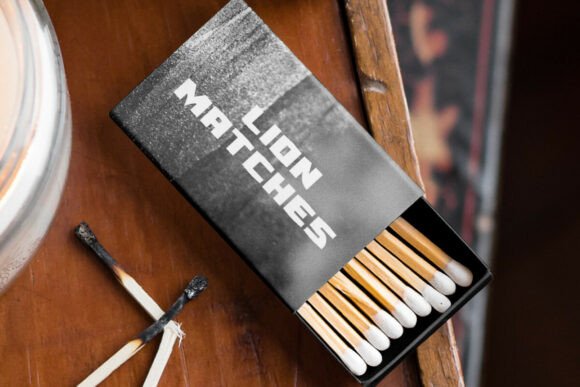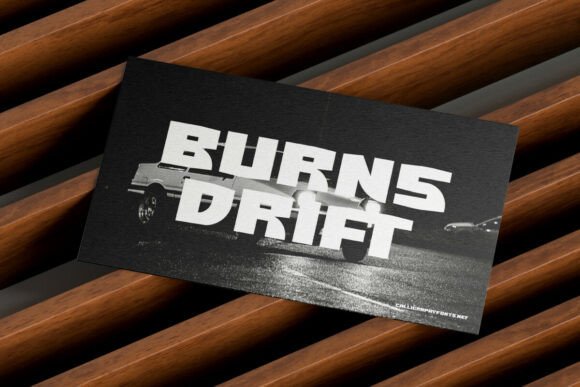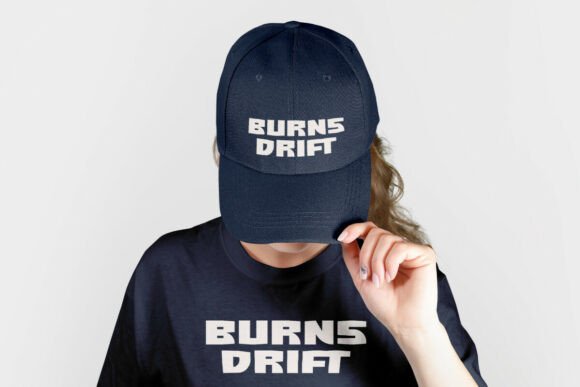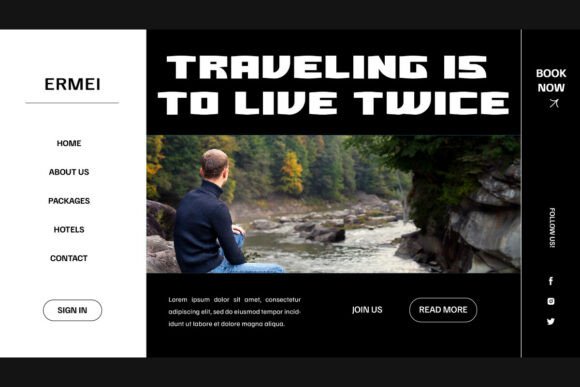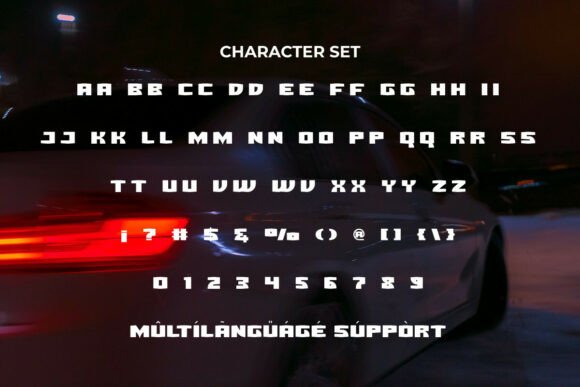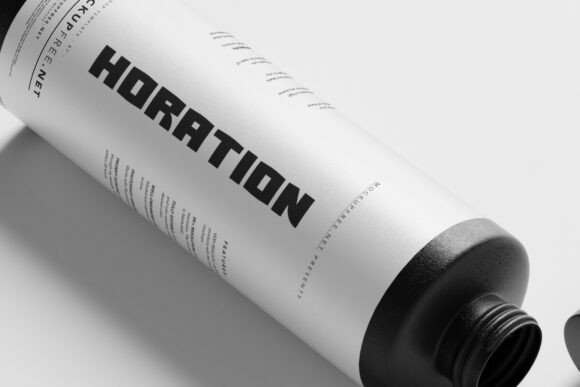
Unleash Your Creativity with Burns Drift Font
Have you ever been in the middle of a design project, and suddenly, it hits you – the font you’re using just isn’t cutting it? You’re striving for that perfect blend of style, boldness, and personality, but it’s just out of reach. I recall a particularly frustrating experience while working on a branding project for a local racing event. The client’s request was straightforward: create a poster that screams speed, energy, and excitement. The problem was, I was stuck with a font that was as dull as a blank canvas. That’s when I stumbled upon Burns Drift Font, and let me tell you, it was love at first sight!
A Bold and Versatile Typeface
Burns Drift Font is a dashing racing-themed font with quite thick contrast, which is attractive because it is strong and bold. Its unique letterforms and robust presence make it perfect for headlines, posters, branding materials, social media graphics, and packaging. This font is designed to make your projects stand out from the crowd, adding a dynamic and modern vibe that’s sure to captivate your audience.
What I Love About Burns Drift Font
• ✨ Bold and Eye-Catching: Burns Drift Font is perfect for making a statement. Its thick contrast and strong letterforms ensure your headlines and titles pop.
• ✅ Versatile: Whether you’re designing posters, business cards, or social media graphics, this font adapts seamlessly to various design needs.
• 💡 Unique Style: The font’s racing-themed design adds a touch of excitement and energy to your projects, making them more engaging and memorable.
While Burns Drift Font is an excellent choice for many projects, there are a few things to keep in mind:
• ⚠️ Legibility at Small Sizes: Due to its bold nature, Burns Drift Font might not be the best choice for body text or small sizes. It’s ideal for headlines and titles where you want to make a strong impact.
• 🤔 Pairing with Other Fonts: Finding the right font pairing can be a bit tricky. You’ll want to choose a font that complements Burns Drift’s bold style without overpowering it.
The Backstory Behind Burns Drift Font
The story behind Burns Drift Font is one of passion and creativity. The designer, inspired by the world of racing and motorsports, aimed to create a font that captures the essence of speed and excitement. With Burns Drift Font, you can bring that same energy to your projects, making them more engaging and memorable.
Q: What makes Burns Drift Font unique?
A: Burns Drift Font stands out due to its bold, racing-themed design and strong letterforms, making it perfect for headlines and titles that need to make a statement.
Q: Is Burns Drift Font suitable for body text?
A: While Burns Drift Font is ideal for headlines and titles, it may not be the best choice for body text due to its bold nature. It’s recommended to use it for display purposes where you want to make a strong impact.